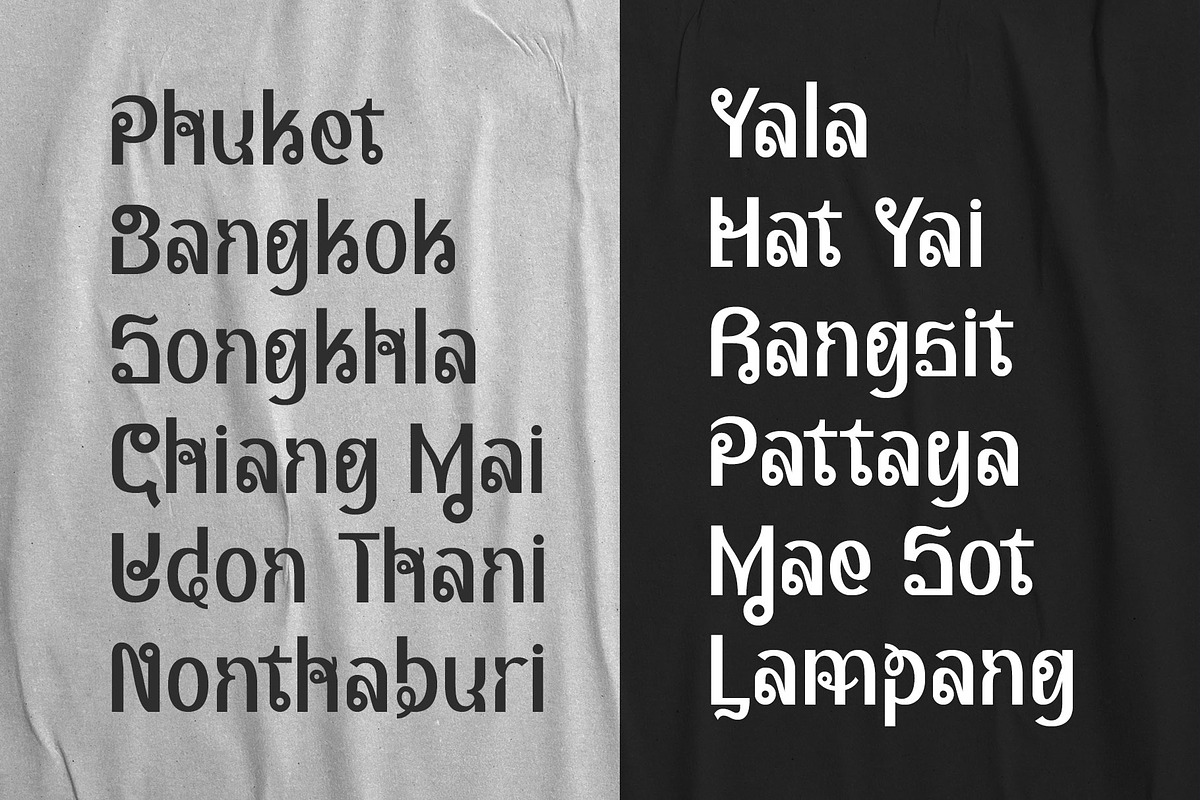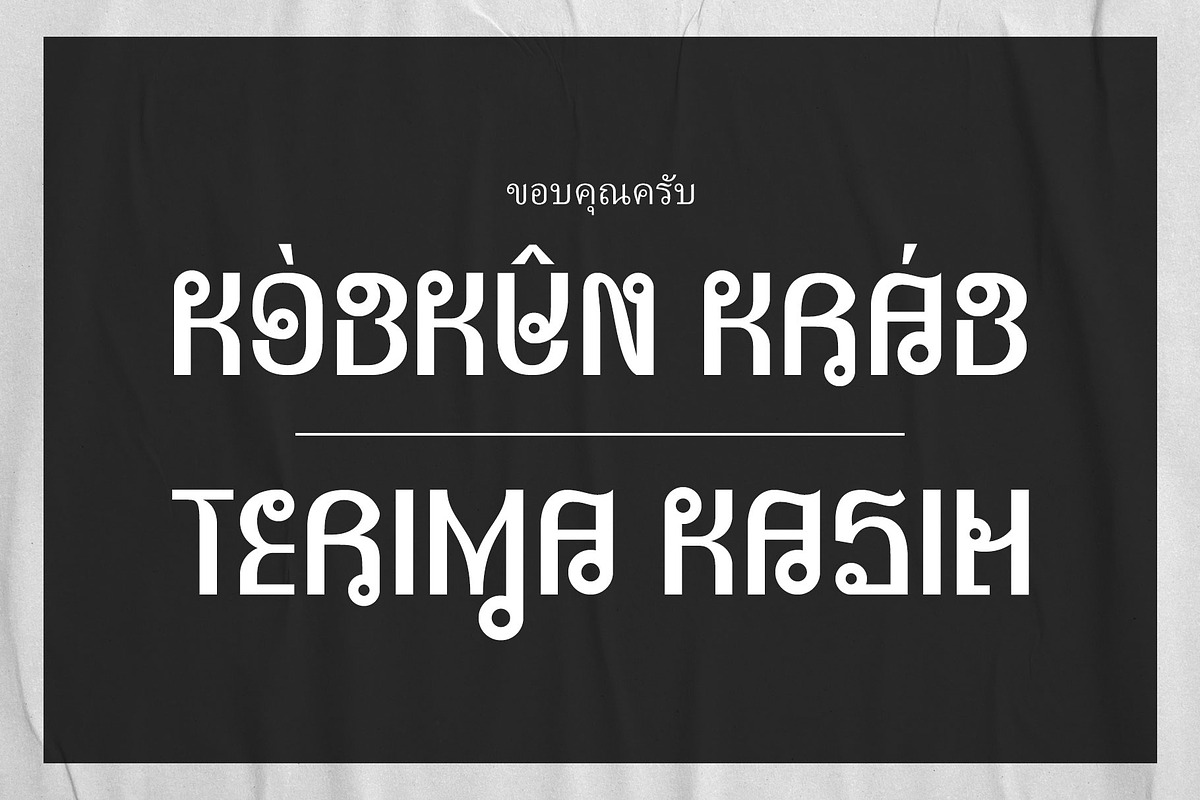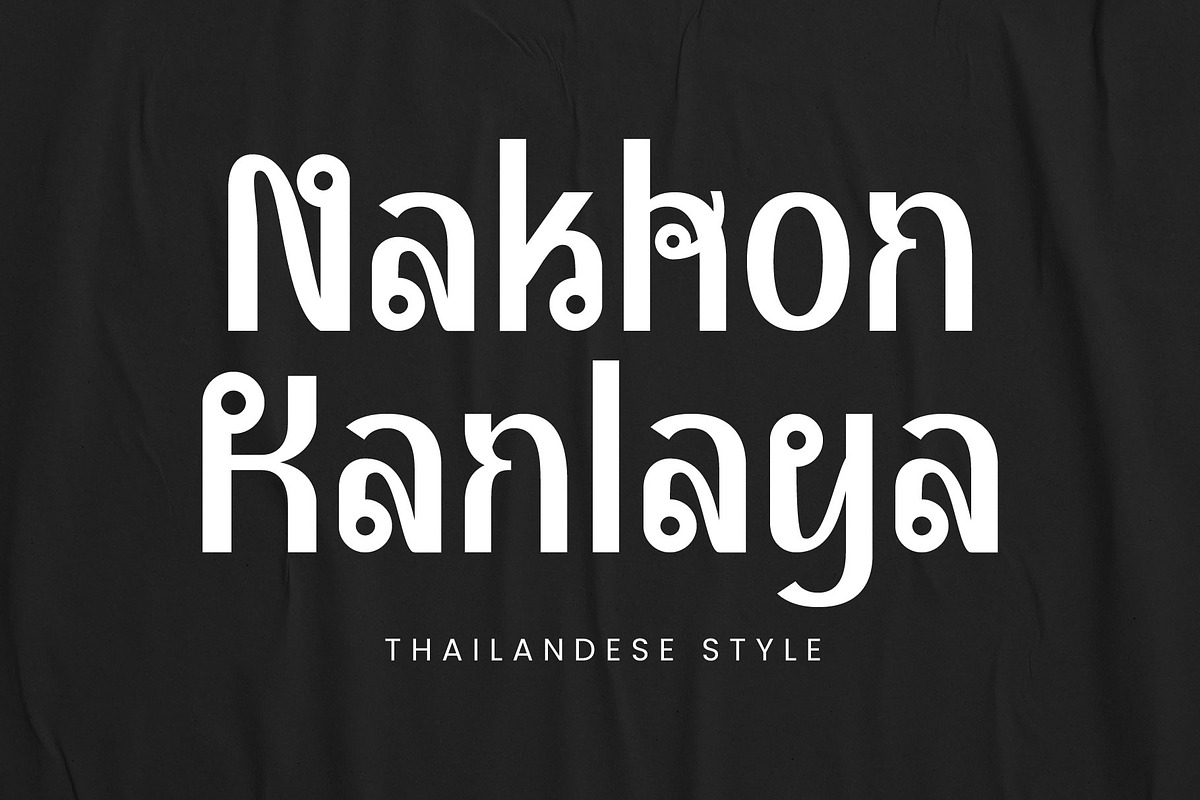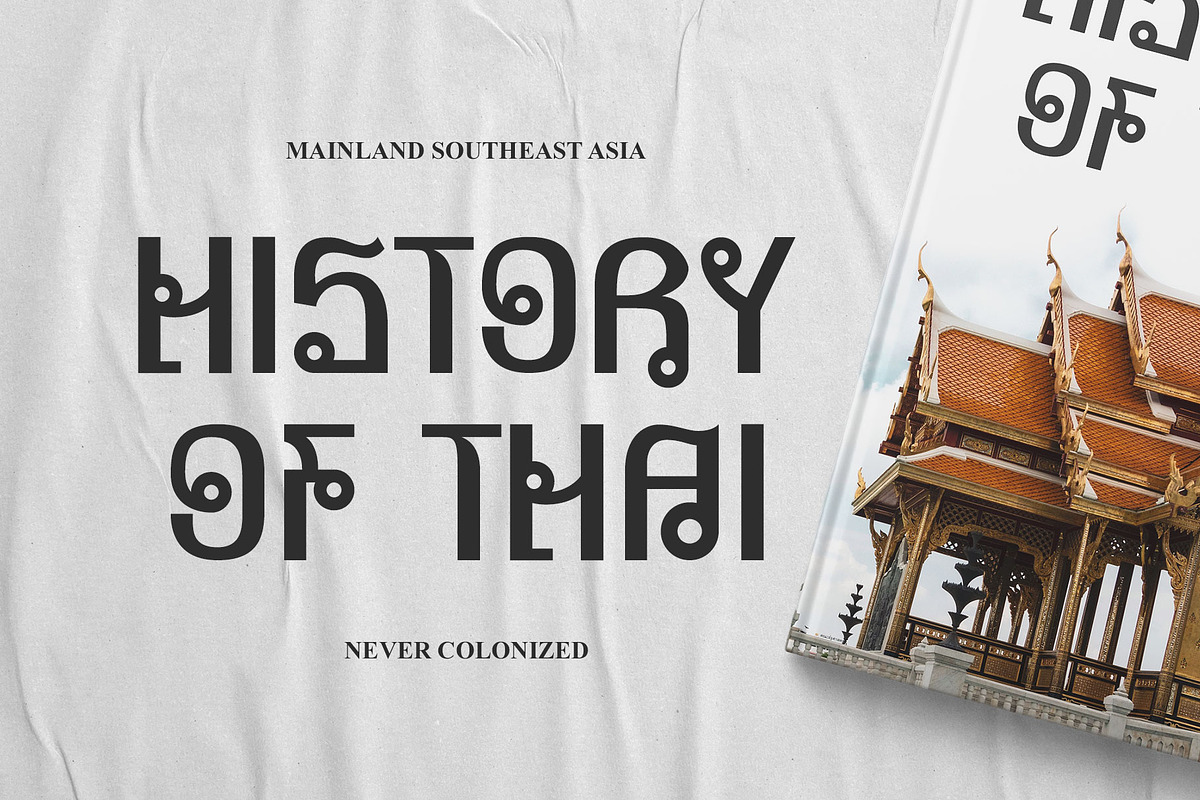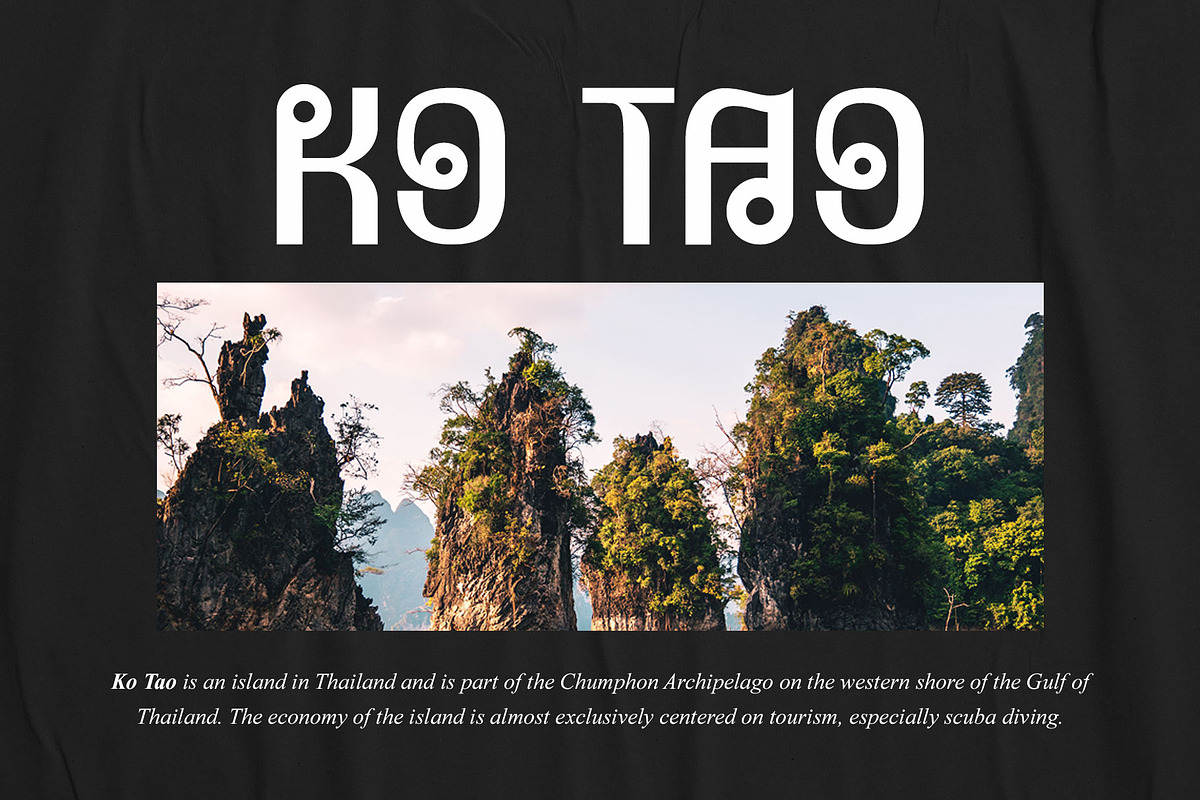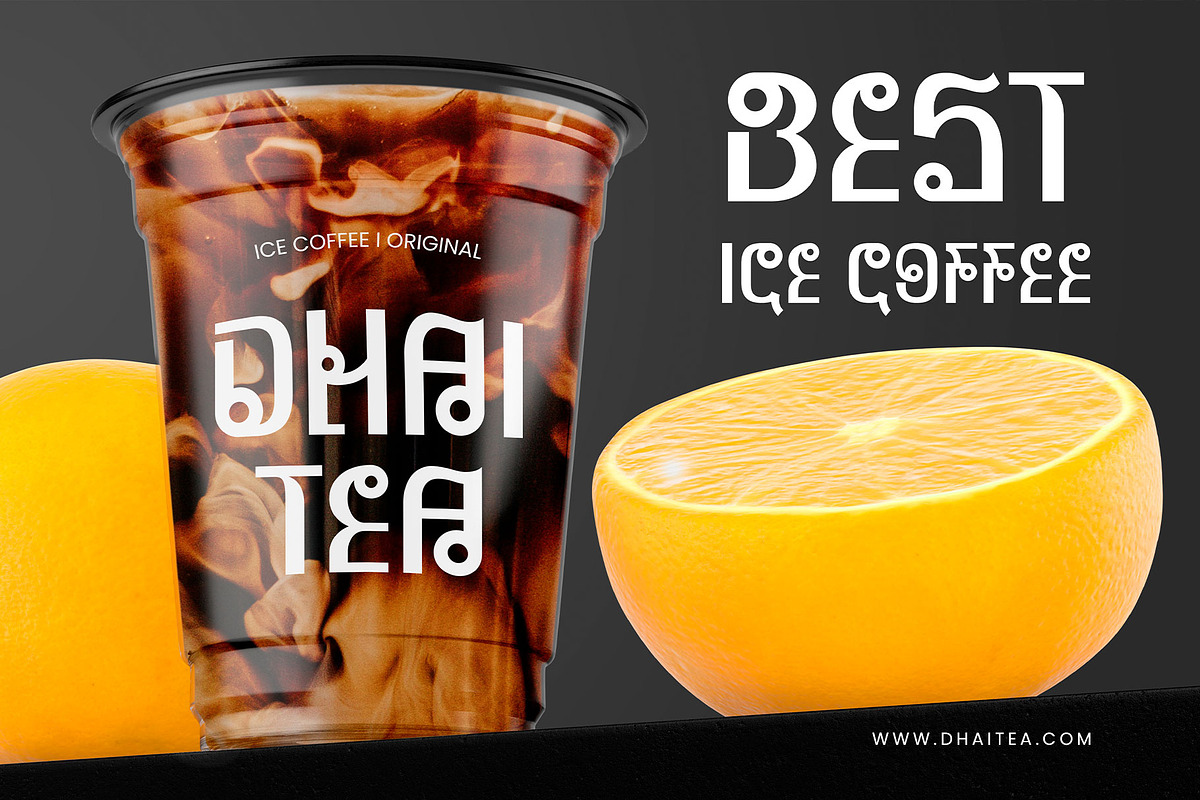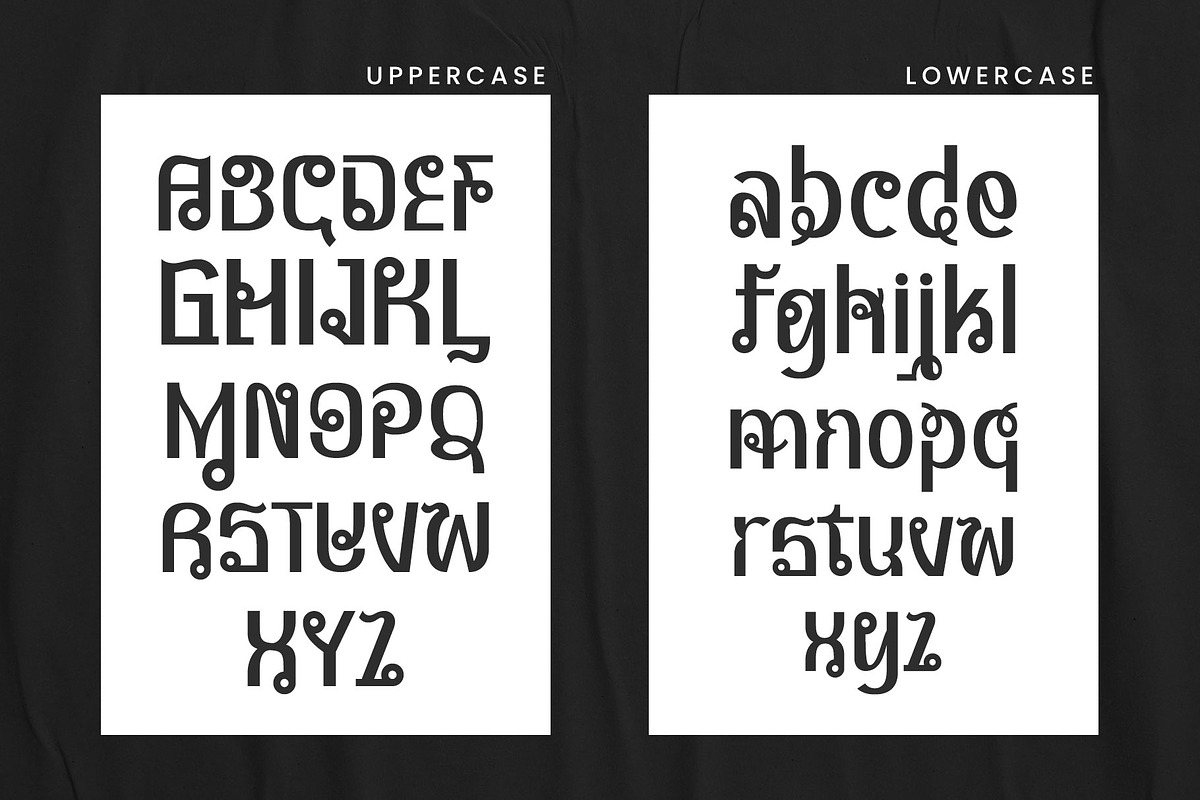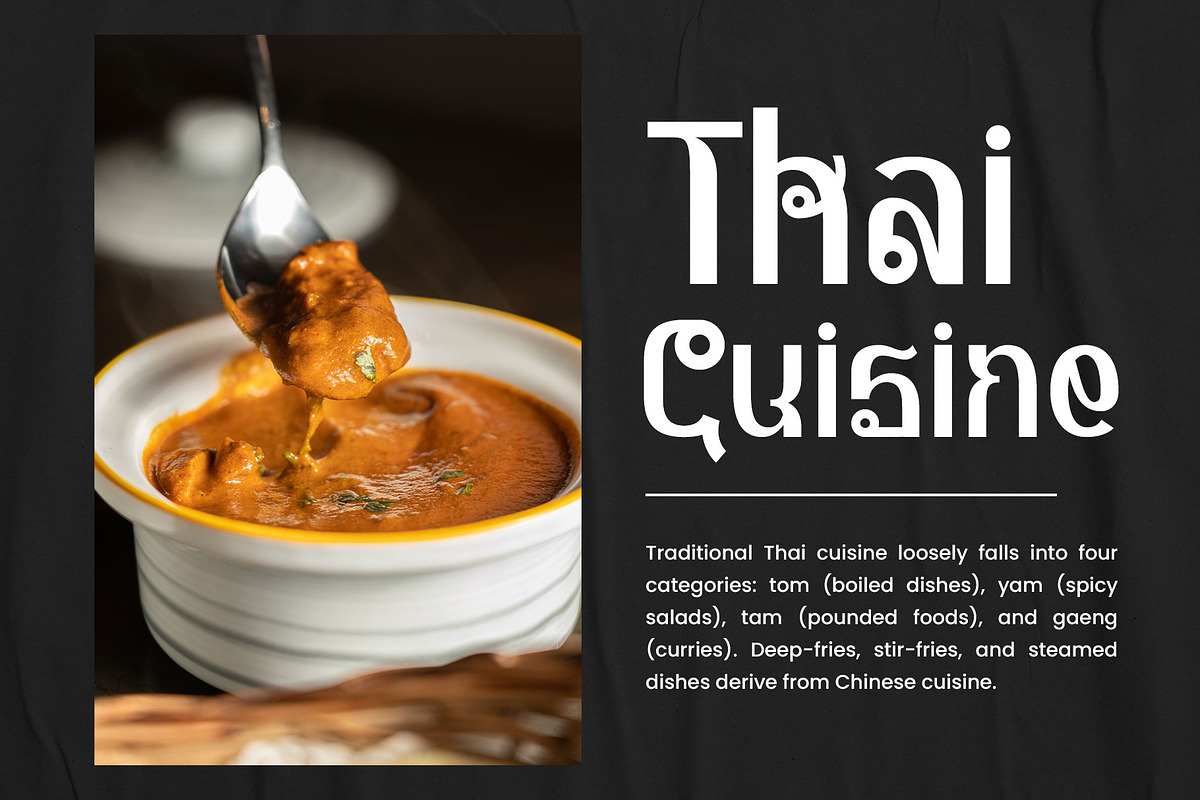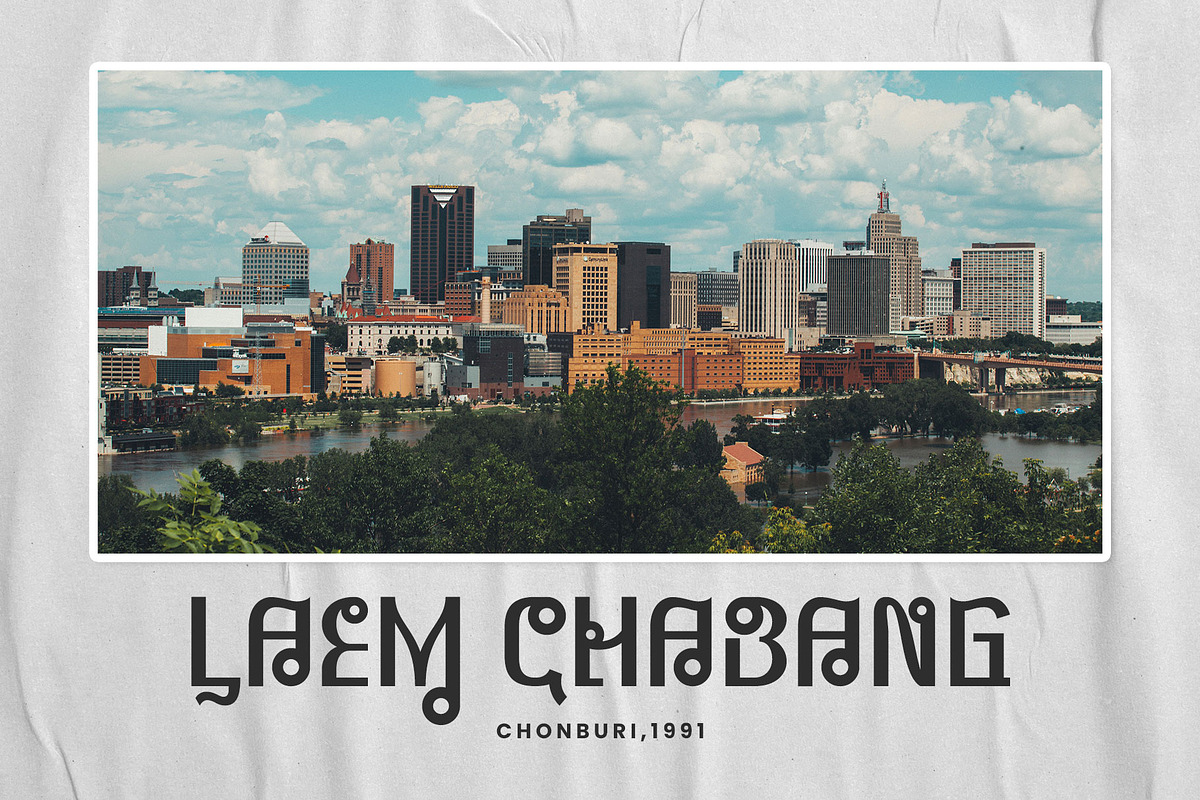
Nakhon Kanlaya - Thailand Style
Introducing "Nakhon Kanlaya" an experimental font inspired by the common characters from the Thai letters. Perfect for packaging, stickers, poster, promotion, and more!
Thai local letters have snaking shapes, dominated by curves and circles which give a strong traditional impression, especially with the cultural and culinary taste like Thai Tea, Thailand dance, and buildings that exist there.
This font implements the curved and circle shapes combined with a simple Latin font, a little bold so that it remains easy to read, and is recommended for displays or titles.